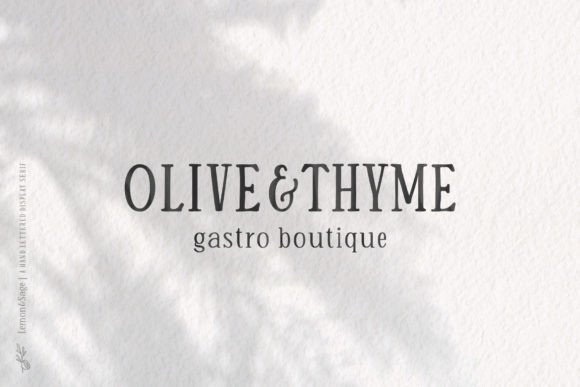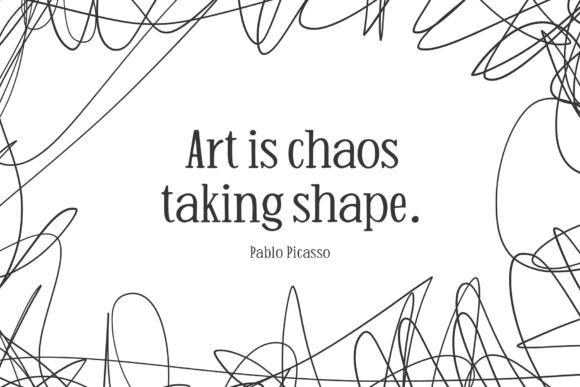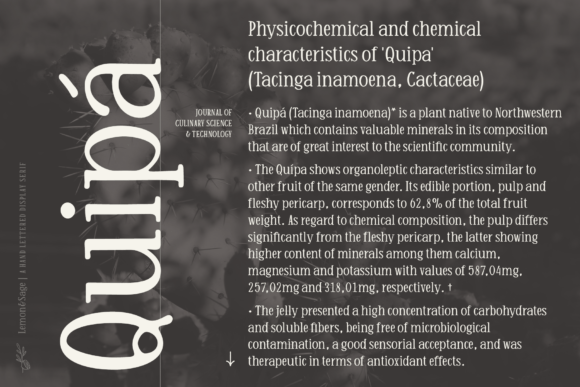
Introduction to Lemon and Sage Font
As a designer, have you ever found yourself staring at a blank canvas, searching for the perfect font to bring your creative project to life? The moment of discovery, when the right typography clicks, is pure magic. For many designers, it’s a moment that elevates a simple design into a stunning work of art.
That’s exactly what the Lemon and Sage Font promises to deliver – a sophisticated, charming serif font that exudes elegance and sophistication. This luxurious font is designed to add a fashionable touch to your designs, making it the perfect choice for high-end, feminine projects. With its high-quality design and transparent background, the Lemon and Sage Font is a valuable resource for designers seeking to create modern, chic designs.
Key Features of Lemon and Sage Font
- High-quality, professional font ideal for creative projects and design resources.
- Includes a transparent background, making it easy to overlay text on various backgrounds and images.
- Features a unique, elegant design that combines the freshness of lemon and the sophistication of sage.
- Has a high resolution, making it suitable for use in large-scale designs and print materials.
Honest Review: Lemon and Sage Font
I recently had the chance to work with the Lemon and Sage Font and I must say, it’s been a fantastic addition to my design toolkit. The font is perfect for any creative project that requires a touch of elegance and sophistication.
Here are some things that work well with the Lemon and Sage Font :
- ✨ High quality design: The font is crisp and clear, making it perfect for printing or digital use.
- ✨ Transparent background: The font has a transparent background, making it easy to use in any design without worrying about a cluttered look.
- ⚠️ Limited font variations: While the font itself is lovely, there are limited variations available, which might make it less versatile for some designers.
Overall, I’m thoroughly impressed with the Lemon and Sage Font. It’s a fantastic design resource that I’ll definitely be using in future projects. If you’re looking for a high-quality font to add some elegance to your design, I highly recommend giving it a try!
The Lemon and Sage Font is perfect for a variety of creative projects, including invitations, brochures, and social media graphics. Its high-quality design and transparent background make it an ideal resource for designers and non-designers alike.